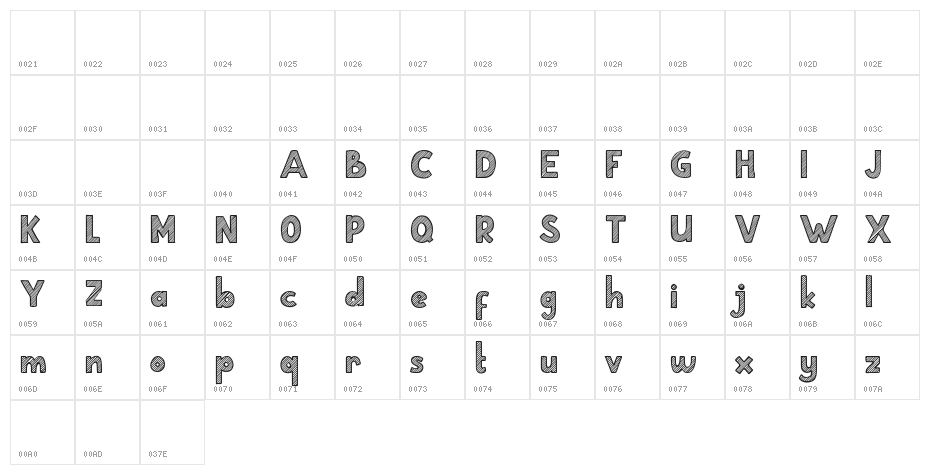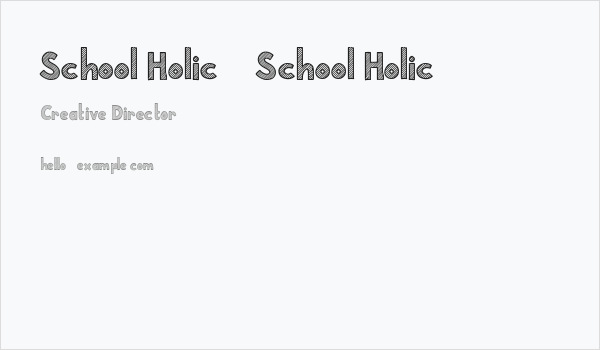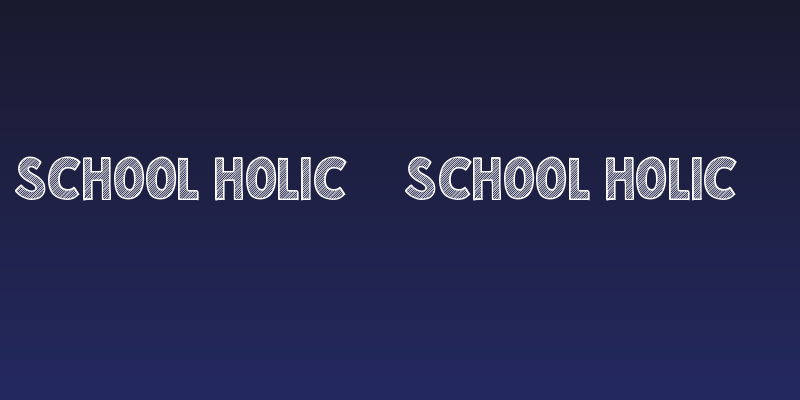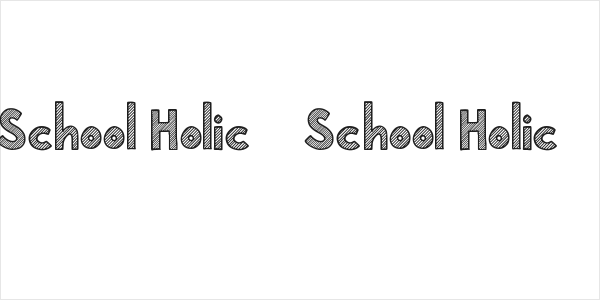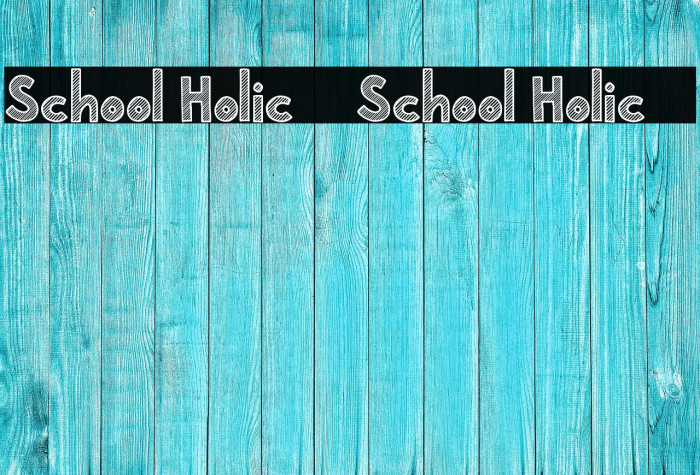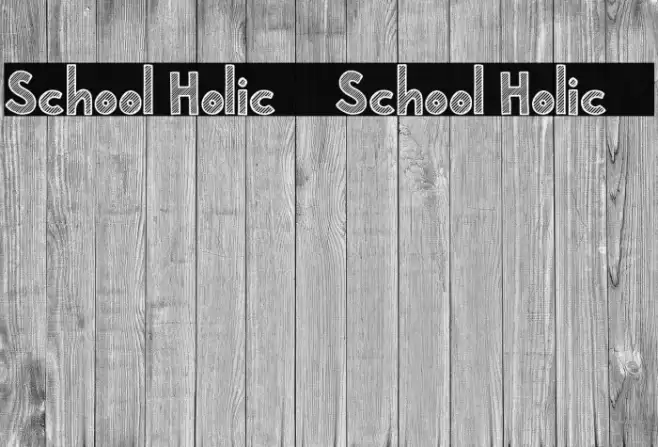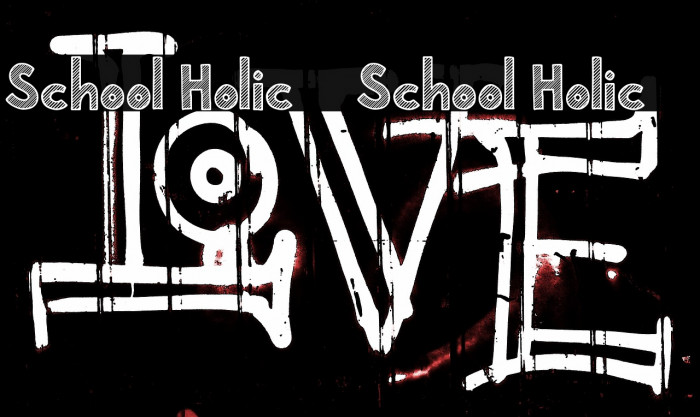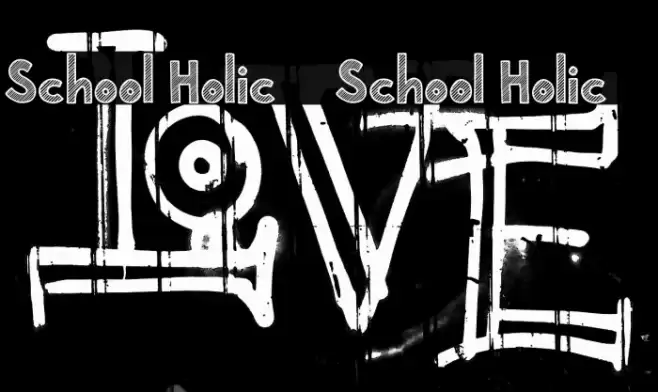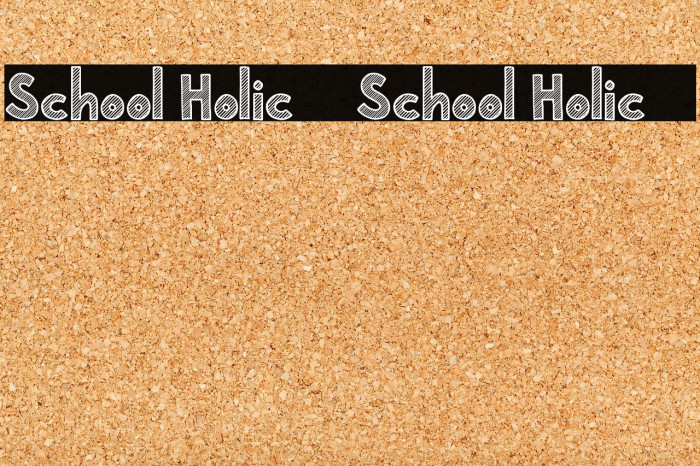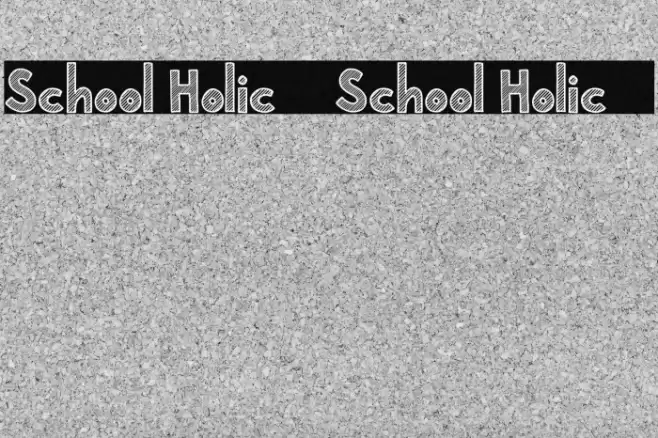
School Holic 2 Font
School Holic 2 Description
This font features a playful and dynamic design with a hand-drawn, sketch-like appearance. The letters are bold and filled with diagonal lines, giving them a textured, shaded look. The uppercase and lowercase characters maintain a consistent style, with rounded edges and a slightly whimsical feel. The numerals and special characters follow the same design principles, ensuring uniformity across the font. This font's unique style makes it stand out, offering a creative and informal vibe suitable for various design projects.
| Overall Style | Playful, Creative, Informal |
| Proposed Projects | Ideal for children's book covers, educational materials, playful branding, and creative posters. |